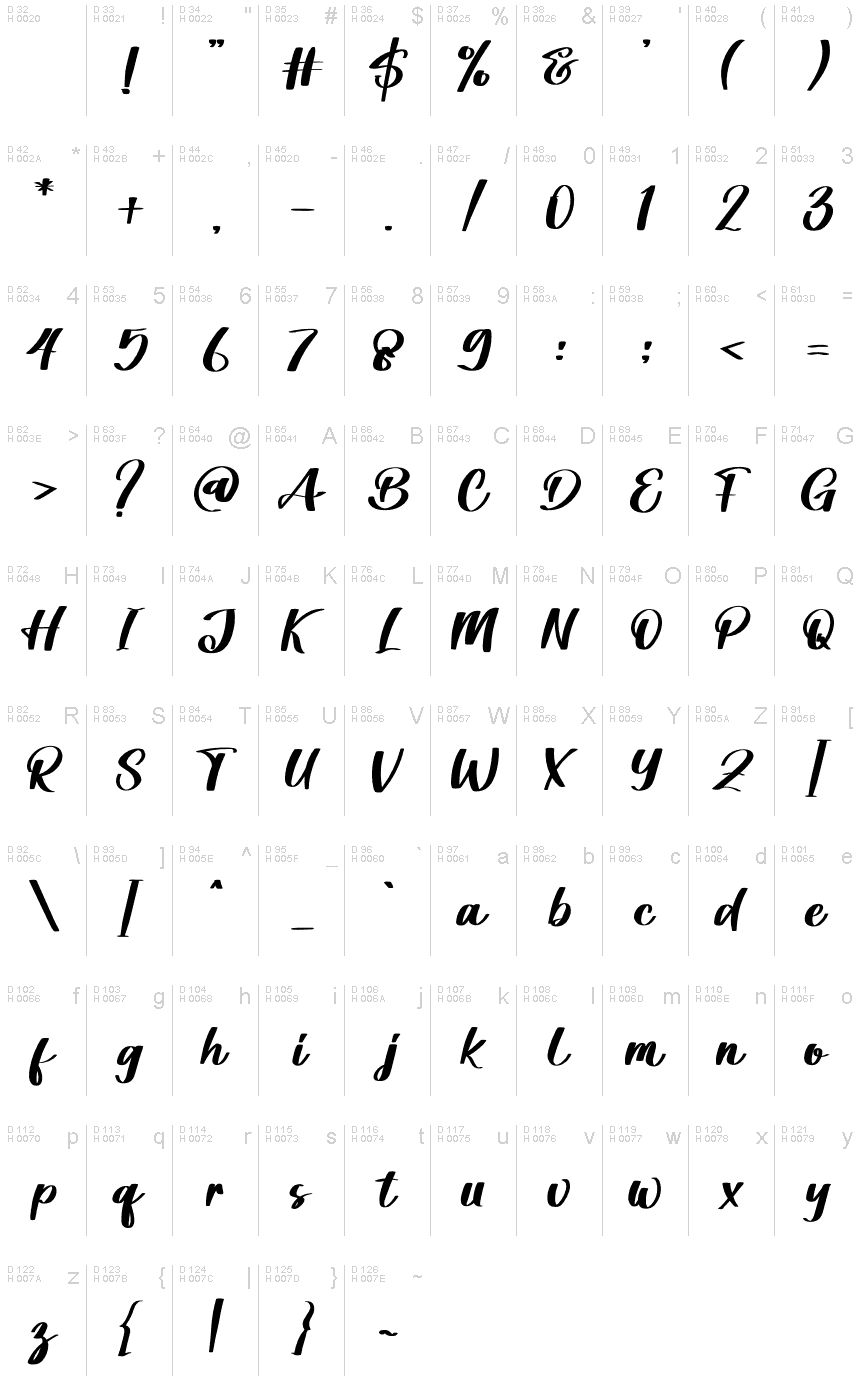
Huggies
With Huggies, your words will pop off the page in a playful and approachable manner. Designed by FreshtypeINK, this semi-bold handwritten marker font offers a unique and personal touch to any project. Perfect for children's book illustrations, invitations, greeting cards or any design that needs to convey warmth and sincerity. Its bold strokes make it easy to read from afar while its playful style adds personality and charm. Let Huggies give your words the extra hug they need!